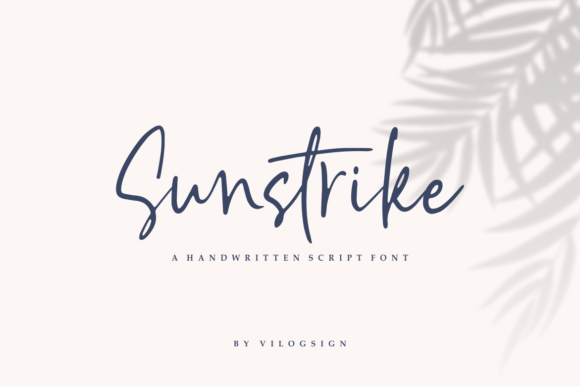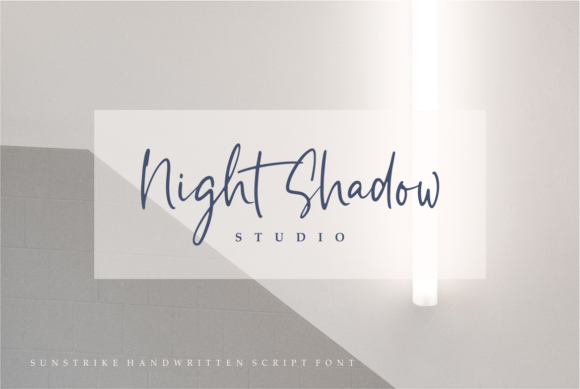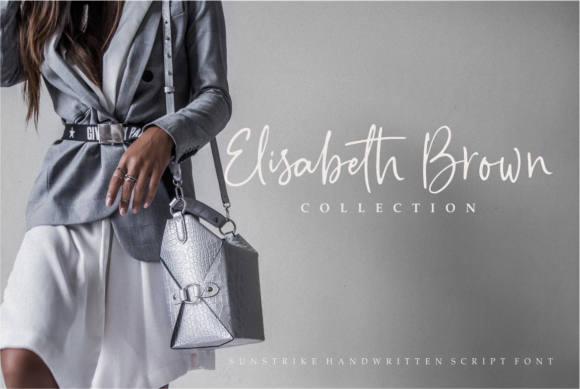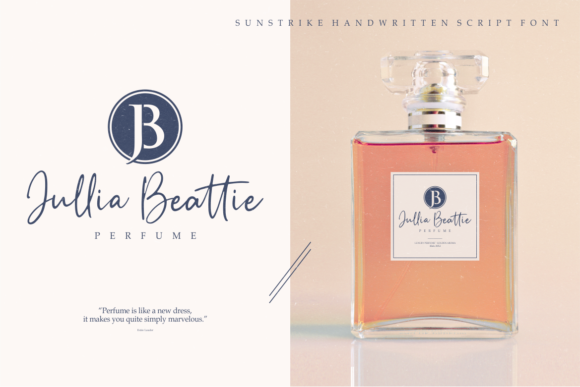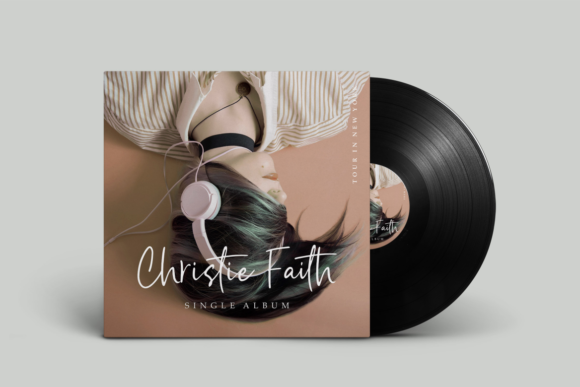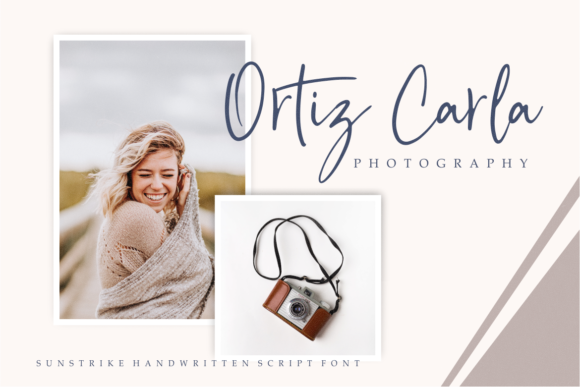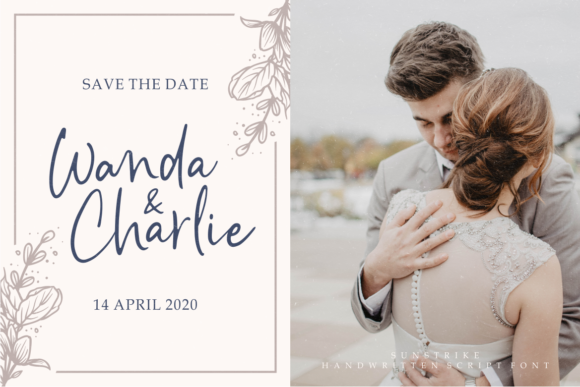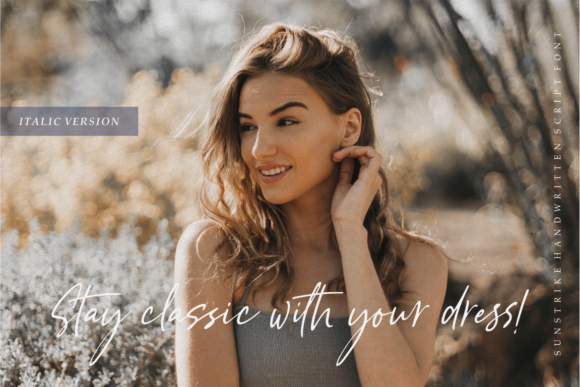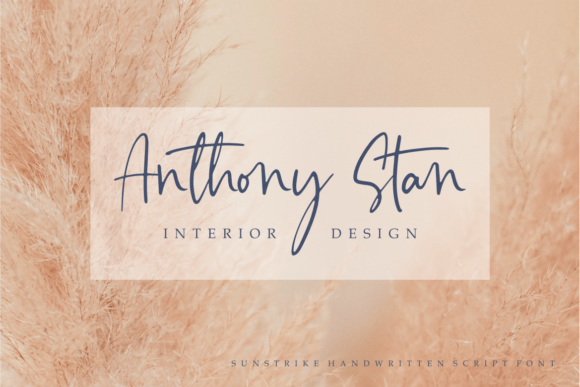
HomeScript FontsSunstrike Font Script Fonts Sunstrike Font FacebookXPinterestWhatsApp Sunstrike Font Poster 2 Sunstrike Font Poster 3 Sunstrike Font Poster 4 Sunstrike Font Poster 5 Sunstrike Font Poster 6 Sunstrike Font Poster 7 Sunstrike Font Poster 8 Sunstrike Font Poster 9 Sunstrike Font Poster 10 Sunstrike Font Poster 11 Sunstrike Font Poster 12 About Sunstrike Font Sunstrike is a beautiful handwritten script font with flowing letters. Get inspired by its vintage coolness1 DOWNLOAD NOW People also explored Simple Latin Waver Font Dualima Font Upright Font Kristof Ramos Font Marokorange Font Dangerous Font Monstera Font Wynfreda Font 308 0 TagsSunstrike Font Previous articleAndellia Davilton FontNext articleAlmond Caramel Font LEAVE A REPLY Cancel reply Comment: Please enter your comment! Name:* Please enter your name here Email:* You have entered an incorrect email address! Please enter your email address here Website: Save my name, email, and website in this browser for the next time I comment. Personal Use Free Lumber Personal Use Free Read more about this font Ashay Personal Use Free Read more about this font Lovely Girl Personal Use Free Read more about this font Happy Rabbit Personal Use Free Read more about this font BLOG Best Fonts for YouTube Videos: Make Your Thumbnails Stand Out Best Fonts for YouTube Videos: Make Your Thumbnails Stand Out Choosing the right font can make a massive difference in how your YouTube videos perform.... The 10 Best Handwriting Fonts to Add Personality to Your Designs Using Fonts in Digital Marketing: Tips to Strengthen Your Brand Identity Exploring Font Trends